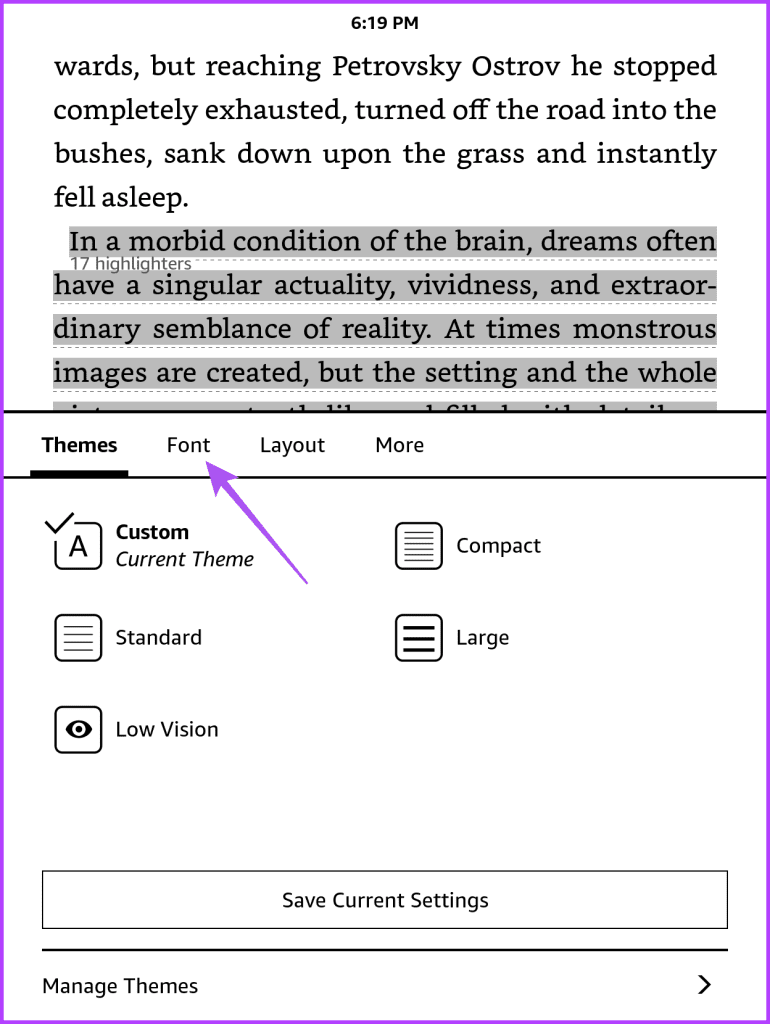
What Font Is Used For Kindle Books . It has a contemporary look, with balanced spacing, elegant curves, and subtle details. It should be the preferred. You should use whichever font you want to read at whichever size you prefer. I only use palatino linotype and other decorative type for my printed books. The default font size (that which is used when not explicitly declaring a font size) is the equivalent of 12pt. That’s probably the best font for you. Set some sample pages in your selected font. Experiment to find the font that best fits your paperback. And the fact that it is designed specifically for digital reading makes it excellent for readability. (and if you want my personal recommendation? When you see a whole page.
The default font size (that which is used when not explicitly declaring a font size) is the equivalent of 12pt. It has a contemporary look, with balanced spacing, elegant curves, and subtle details. And the fact that it is designed specifically for digital reading makes it excellent for readability. You should use whichever font you want to read at whichever size you prefer. When you see a whole page. It should be the preferred. Set some sample pages in your selected font. (and if you want my personal recommendation? That’s probably the best font for you. Experiment to find the font that best fits your paperback.
What Font Is Used For Kindle Books And the fact that it is designed specifically for digital reading makes it excellent for readability. You should use whichever font you want to read at whichever size you prefer. It should be the preferred. And the fact that it is designed specifically for digital reading makes it excellent for readability. (and if you want my personal recommendation? When you see a whole page. That’s probably the best font for you. Set some sample pages in your selected font. Experiment to find the font that best fits your paperback. It has a contemporary look, with balanced spacing, elegant curves, and subtle details. The default font size (that which is used when not explicitly declaring a font size) is the equivalent of 12pt. I only use palatino linotype and other decorative type for my printed books.
12 Best Kindle Fonts To Elevate Your Ereading Experience HipFonts What Font Is Used For Kindle Books (and if you want my personal recommendation? When you see a whole page. It has a contemporary look, with balanced spacing, elegant curves, and subtle details. Set some sample pages in your selected font. I only use palatino linotype and other decorative type for my printed books. That’s probably the best font for you. The default font size (that which. What Font Is Used For Kindle Books.
How To Add Custom Fonts To Your Amazon Kindle Technology Unboxer What Font Is Used For Kindle Books It should be the preferred. When you see a whole page. You should use whichever font you want to read at whichever size you prefer. (and if you want my personal recommendation? Experiment to find the font that best fits your paperback. Set some sample pages in your selected font. That’s probably the best font for you. And the fact. What Font Is Used For Kindle Books.
How to Install Custom Fonts on Kindle Paperwhite What Font Is Used For Kindle Books When you see a whole page. And the fact that it is designed specifically for digital reading makes it excellent for readability. It has a contemporary look, with balanced spacing, elegant curves, and subtle details. I only use palatino linotype and other decorative type for my printed books. The default font size (that which is used when not explicitly declaring. What Font Is Used For Kindle Books.
10 Best Fonts for Kindle (2024) Graphic Pie What Font Is Used For Kindle Books And the fact that it is designed specifically for digital reading makes it excellent for readability. When you see a whole page. It has a contemporary look, with balanced spacing, elegant curves, and subtle details. Experiment to find the font that best fits your paperback. You should use whichever font you want to read at whichever size you prefer. Set. What Font Is Used For Kindle Books.
Best Kindle Fonts Elevate Your Reading Experience What Font Is Used For Kindle Books And the fact that it is designed specifically for digital reading makes it excellent for readability. You should use whichever font you want to read at whichever size you prefer. That’s probably the best font for you. (and if you want my personal recommendation? It should be the preferred. When you see a whole page. The default font size (that. What Font Is Used For Kindle Books.
Add custom fonts to a Kindle Paperwhite What Font Is Used For Kindle Books It should be the preferred. It has a contemporary look, with balanced spacing, elegant curves, and subtle details. I only use palatino linotype and other decorative type for my printed books. You should use whichever font you want to read at whichever size you prefer. When you see a whole page. And the fact that it is designed specifically for. What Font Is Used For Kindle Books.
Best Kindle Fonts Elevate Your Reading Experience What Font Is Used For Kindle Books You should use whichever font you want to read at whichever size you prefer. The default font size (that which is used when not explicitly declaring a font size) is the equivalent of 12pt. Set some sample pages in your selected font. Experiment to find the font that best fits your paperback. And the fact that it is designed specifically. What Font Is Used For Kindle Books.
Amazon.co.uk Adjust the font Kindle Store What Font Is Used For Kindle Books I only use palatino linotype and other decorative type for my printed books. That’s probably the best font for you. (and if you want my personal recommendation? The default font size (that which is used when not explicitly declaring a font size) is the equivalent of 12pt. Set some sample pages in your selected font. When you see a whole. What Font Is Used For Kindle Books.
Kindle Fonts Review on Kindle Oasis (Video) The eBook Reader Blog What Font Is Used For Kindle Books It should be the preferred. And the fact that it is designed specifically for digital reading makes it excellent for readability. Experiment to find the font that best fits your paperback. That’s probably the best font for you. I only use palatino linotype and other decorative type for my printed books. When you see a whole page. It has a. What Font Is Used For Kindle Books.